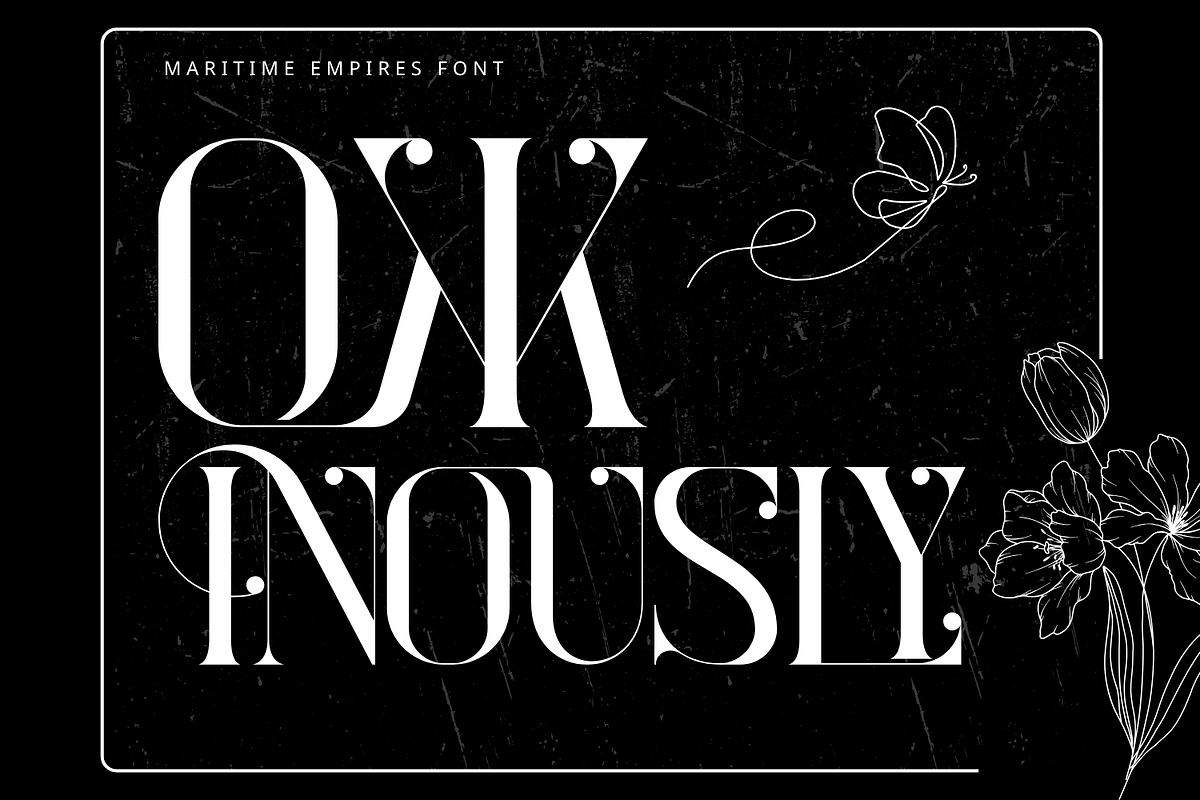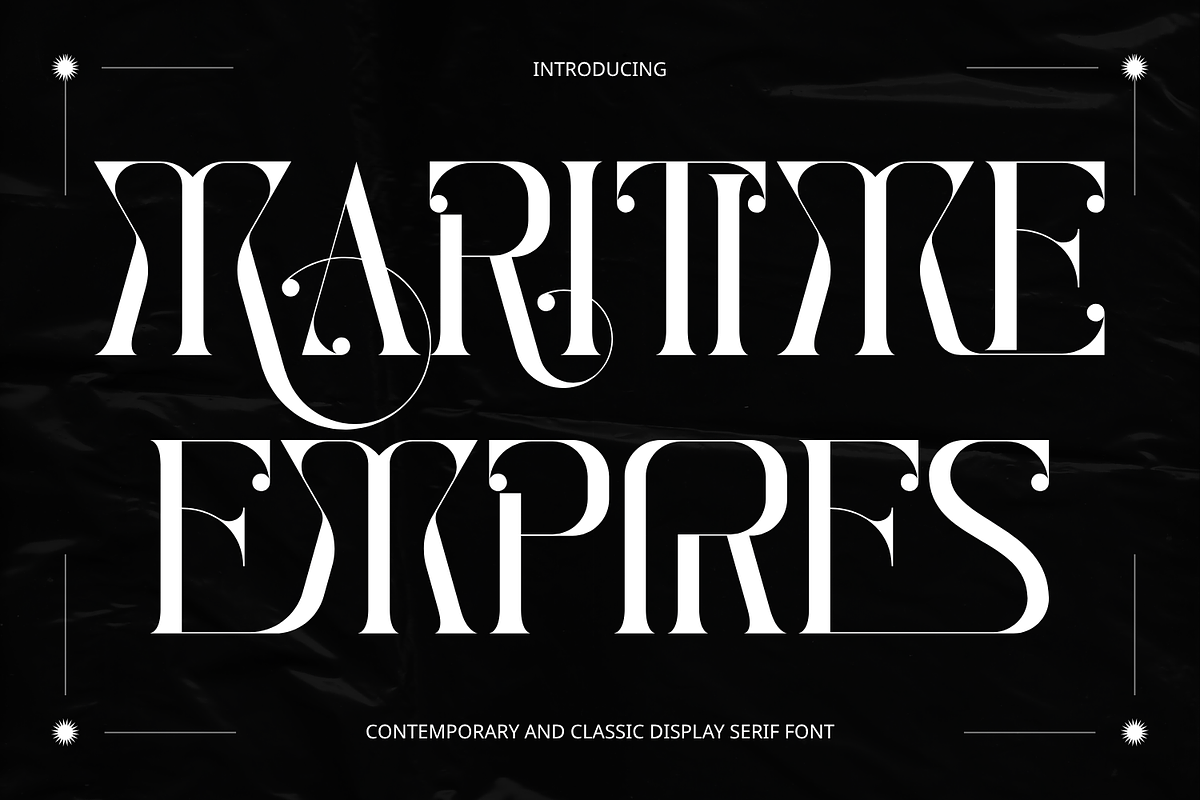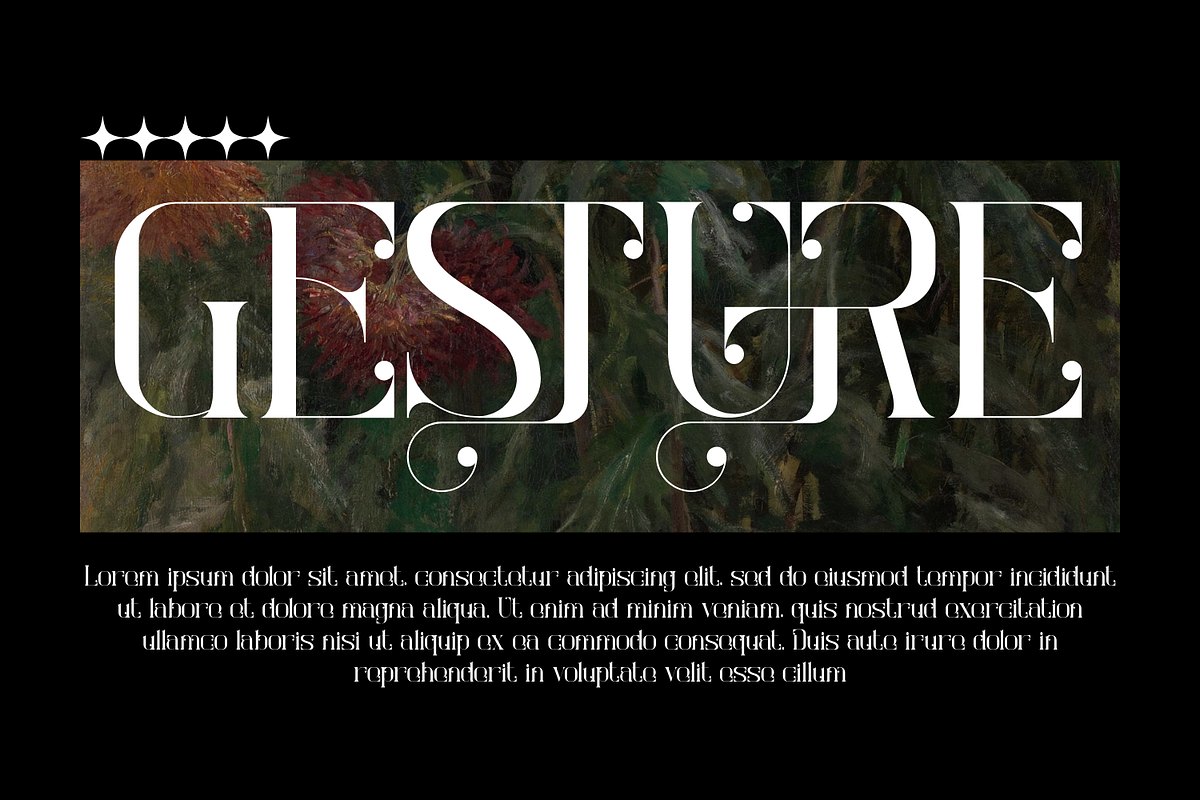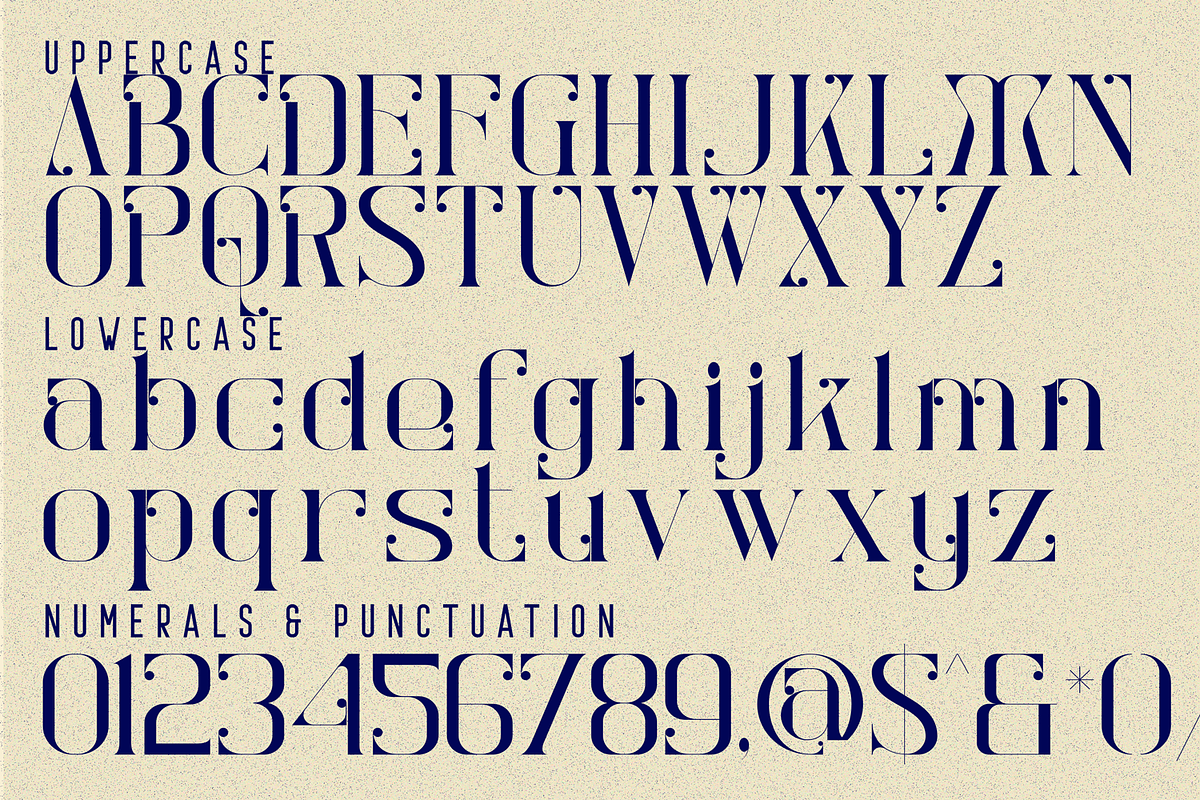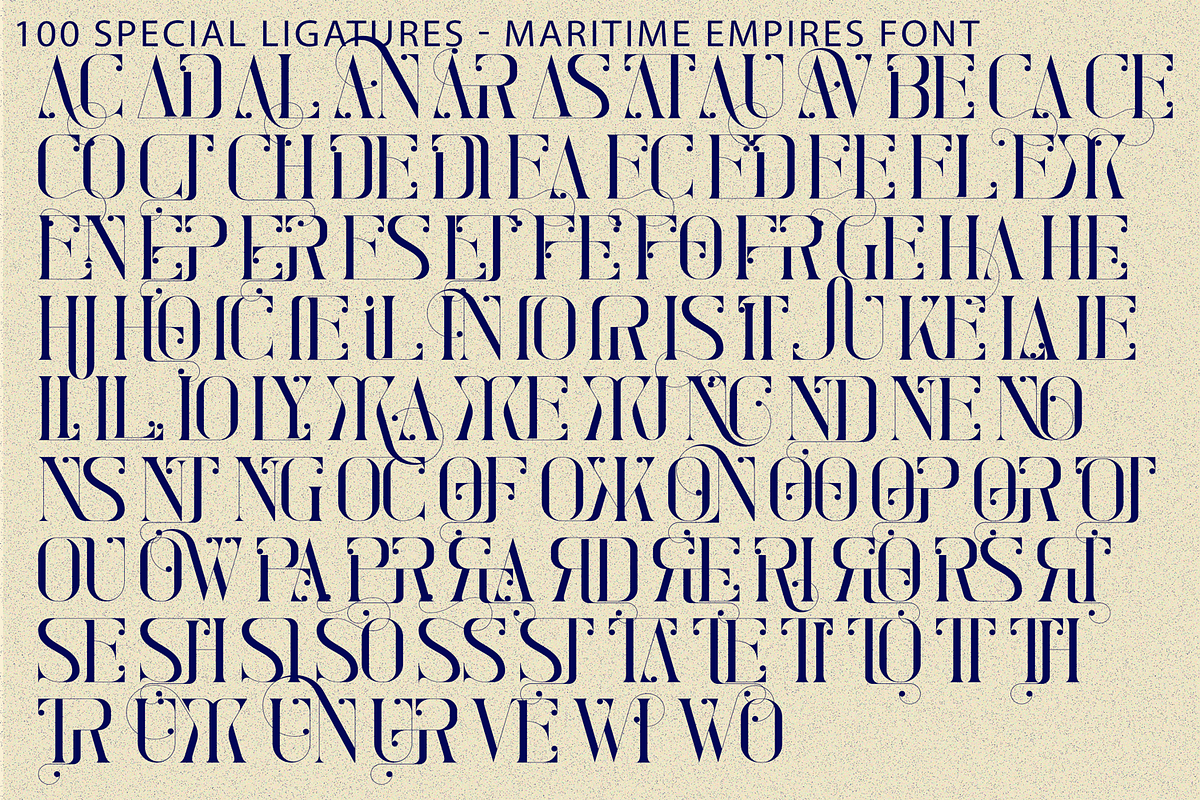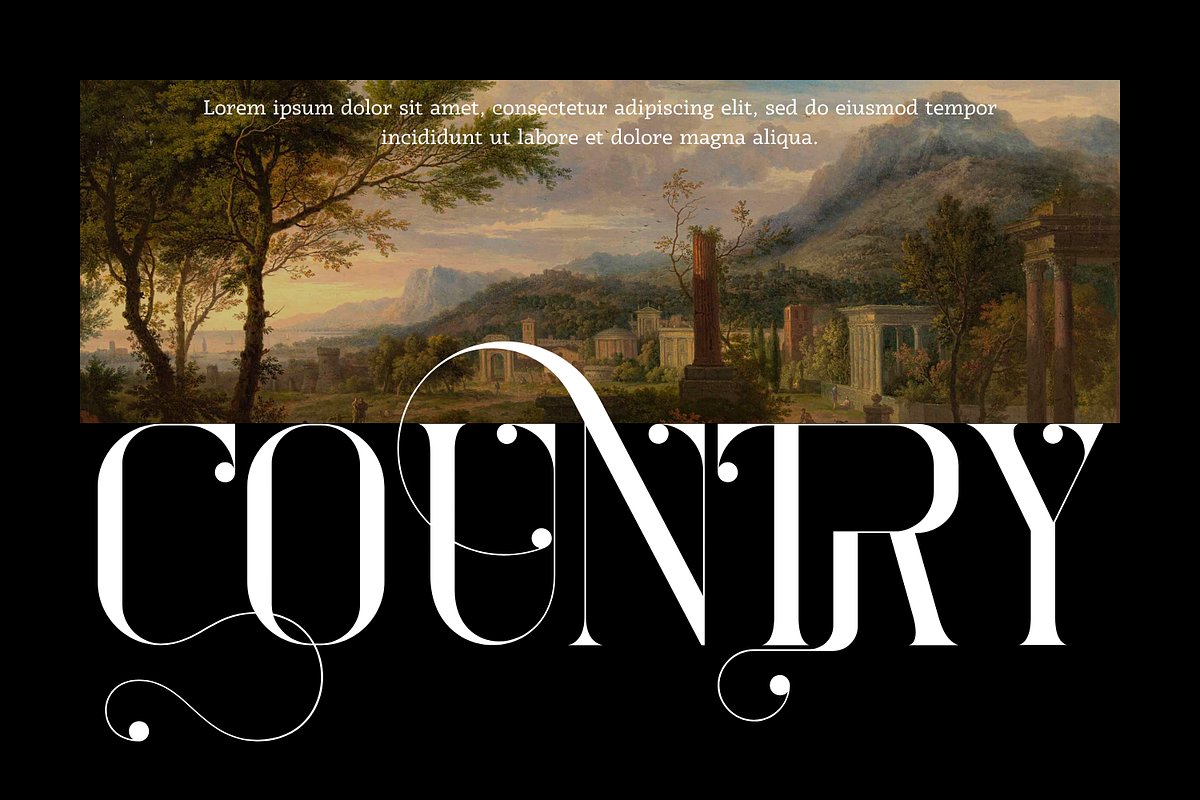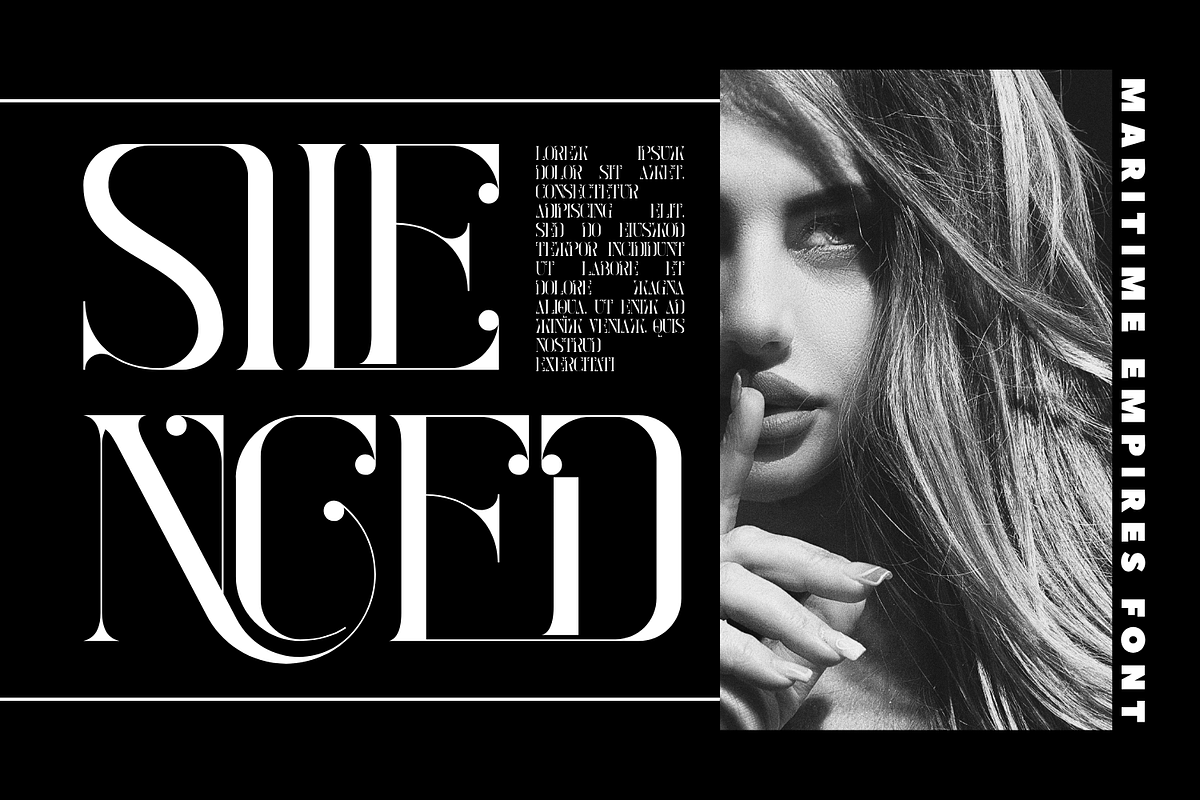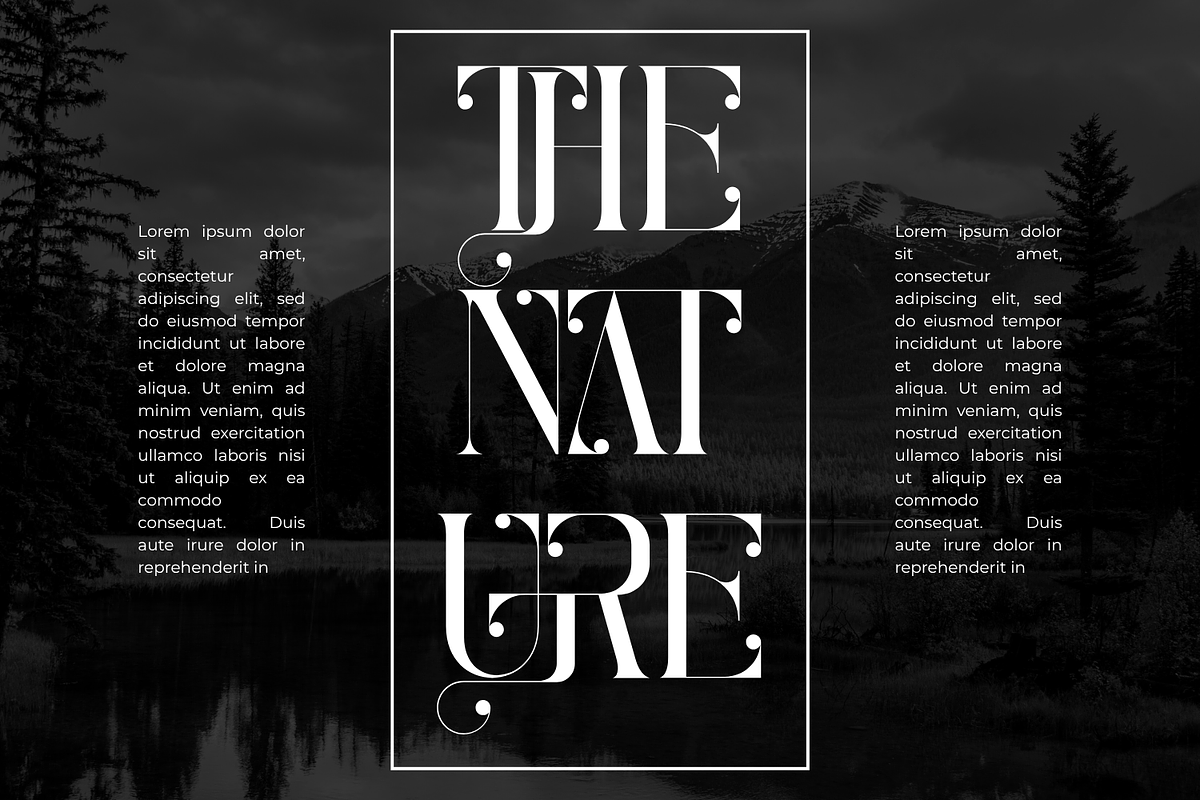
MARITIME EMPIRES - ELEGANT SERIF
MARITIME EMPIRES - ELEGANT SERIF FONT is an elegant decorative display serif that combines the sophistication of classic high-contrast typography with expressive Art Nouveau-inspired details. Featuring graceful proportions, dramatic thick-to-thin transitions, sculptural curves, and refined serifs, the typeface creates a luxurious visual presence with a distinctive artistic personality. Sweeping swashes, delicate hairlines, looping strokes, and elegant ball terminals add rhythm and ornamentation to the letterforms, transforming ordinary words into sophisticated typographic compositions.
Balancing classical refinement with contemporary editorial style, MARITIME EMPIRES feels elegant, romantic, dramatic, and timeless. Its carefully shaped curves and decorative extensions become especially expressive at large sizes, making the typeface an excellent choice for designs where typography is intended to become a central visual element.
🔤Features:
Uppercase & Lowercase Letters
Around 100 Special Ligatures & Alternates
Accented Characters for multilingual support
🔤About 100 ligatures combined with Stylistic Alternates Font:
AC AD AL AN AR AS AT AU AV BE CA CE CH CO CT DE DI EA EC ED EE EL EM EN EP ER ES ET FE FO FR GE HA HE HI HO IE IC IL IN IO IR IS IT JU KE LA LE LI LL LO LY MA ME MI NC ND NE NG NO NT NS OC OF OM ON OO OP OR OT OU OW PA PR RA RD RE RI RO RS RT SE SH SI SO SS ST TA TE TH TI TO TR TT UM UN UR VE WI WO